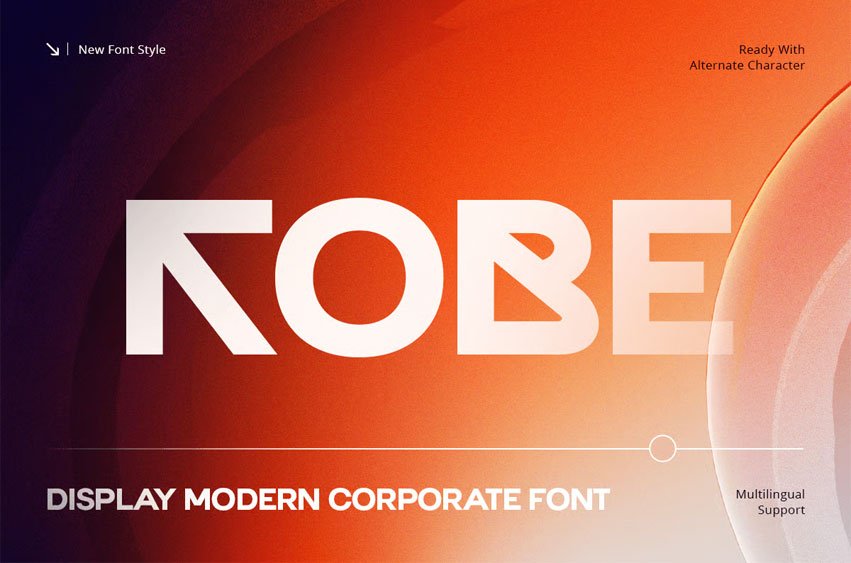
Kobe Font Display Modern Corporate Font is a professional display typeface designed to deliver clarity, confidence, and modern corporate appeal. Inspired by contemporary business branding and clean typography systems, KOBE is crafted for organizations that need a strong and trustworthy visual identity.
With its refined letterforms, balanced proportions, and modern structure, KOBE creates a professional presence that performs exceptionally well across logos, headlines, and business communications. The display-focused design ensures strong visibility while maintaining a polished and corporate character.
KOBE Font Features
- Character Set: Uppercase, lowercase, numbers, symbols, and punctuation
- Modern corporate letterforms optimized for branding and display typography
- OpenType features ready to enhance your design needs
KOBE is Perfect For
- Corporate branding and business identity systems
- Professional logo and logotype design
- Enterprise and startup visual communication
- Website headers and digital brand assets
- Marketing materials and business presentations
- Modern and professional design projects
Whether you are building a corporate identity, designing a professional logo, or creating a modern business branding system, KOBE delivers the clarity, credibility, and contemporary style needed for impactful communication.